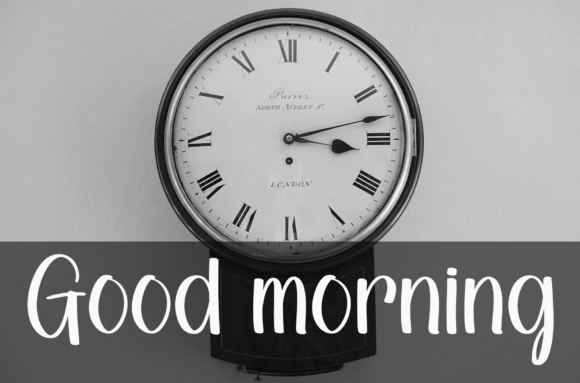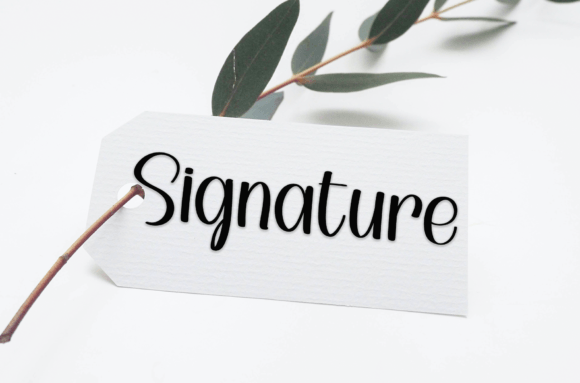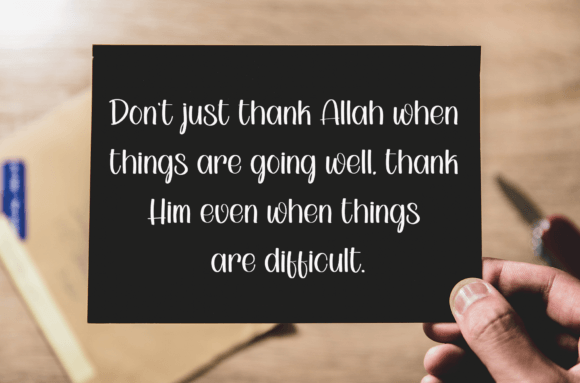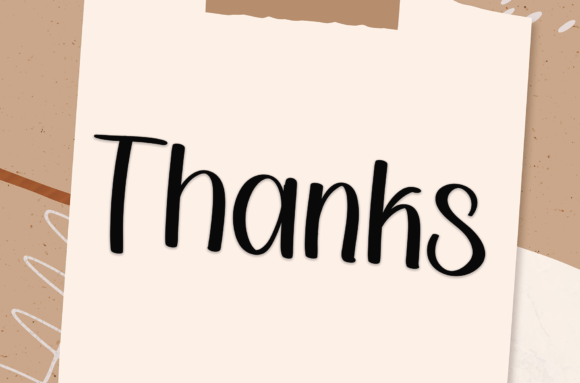
Introduction to Quaint Font
Have you ever stumbled upon a beautiful font that perfectly captures the essence of your creative vision? For designers, finding the right font can be a game-changer, transforming a simple idea into a stunning piece of art. I remember the moment I discovered the Quaint Font – it was love at first sight! Its cute and casual handwritten style immediately resonated with me, and I knew I had to learn more about it.
As a design enthusiast, I appreciate fonts that not only look great but also offer endless possibilities for creative projects. Whether you’re working on a DIY project, crafting social media graphics, or designing a wedding invitation, the Quaint Font is an excellent addition to your design resource toolkit. Its free download option and transparent background make it a high-quality asset for any project, ensuring a seamless and professional finish.
Key Features of Quaint Font
- Unique, hand-drawn design ideal for creative projects requiring a touch of elegance.
- Perfect for use in invitations, greeting cards, and other paper crafting projects, as well as digital designs.
- Includes a comprehensive character set, including uppercase and lowercase letters, numbers, and punctuation marks.
Honest Review: Quaint Font
As a designer, I’ve worked with my fair share of fonts, but the Quaint Font has caught my attention. Its unique style and versatility make it a great addition to any design project.
- ✨ High quality design: The Quaint Font is crisp and clean, making it perfect for print and digital designs.
- ✨ Transparent background: The font’s transparent background allows for seamless integration with images and other design elements.
- ⚠️ Limited character set: The Quaint Font’s character set is limited, which may not be suitable for long-form content or complex text.
- ⚠️ Not suitable for all audiences: The font’s style may not be appealing to all audiences, and its uniqueness may not be appreciated in all design contexts.
Overall, I’m impressed with the Quaint Font’s quality and versatility. While it may have some limitations, it’s a great addition to any design resource. I’d definitely recommend it for creative projects that require a unique touch.
Quaint Font
To get the most out of Quaint Font, use it in combination with other design elements to create a visually appealing design. Experiment with different font sizes and styles to find the perfect balance for your creative project.
Quaint Font is commonly used in creative projects such as invitations, posters, and brochures. Its high-quality design and transparent background make it an ideal choice for designers looking to add a touch of elegance to their work.